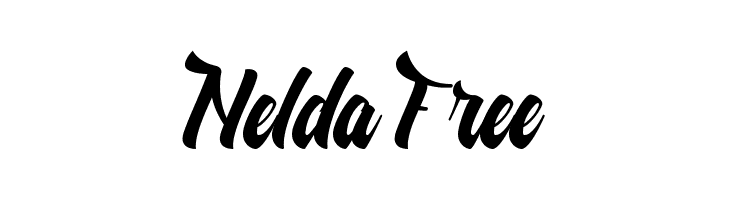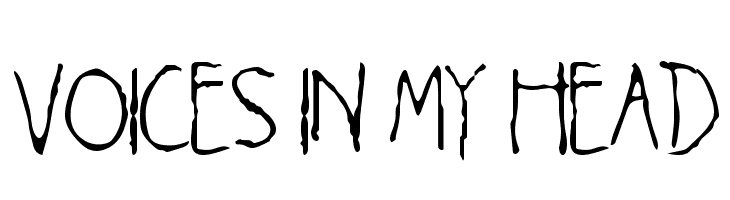
A hand-drawn, expressive font with irregular, organic strokes.
Hand-drawn, whimsical dingbat icons with a warm, playful style.
A playful handwritten font with a whimsical and friendly style.
A bold, dynamic script font with high contrast and flowing letterforms.
A playful, handwritten font with whimsical and charming characters.
A bold, angular font with sharp edges and dynamic movement.
A playful, hand-drawn font with tall, narrow letters and quirky details.
A romantic, heart-themed handwritten font perfect for love-themed projects.
Playful hand-drawn decorative swashes and doodles.
A decorative, heart-themed font with romantic symbols and phrases.